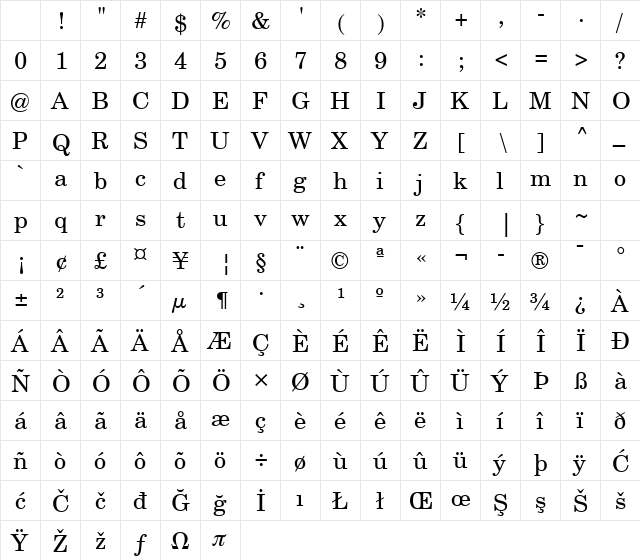
Complete Century Schoolbook SWA Roman glyph index. Displaying only characters natively supported by Century Schoolbook SWA Roman font.
Century Schoolbook SWA is a composed and adaptable typeface that performs quietly and consistently across a wide range of design contexts.